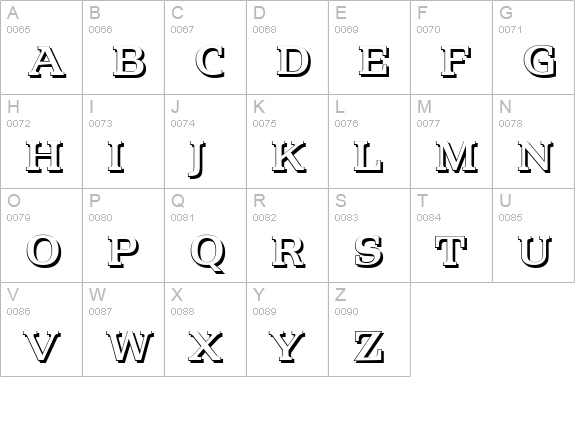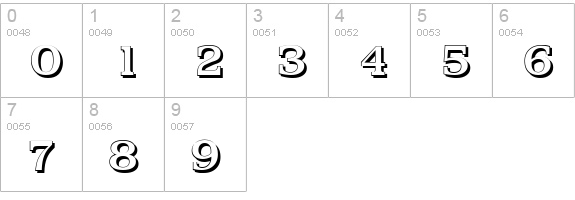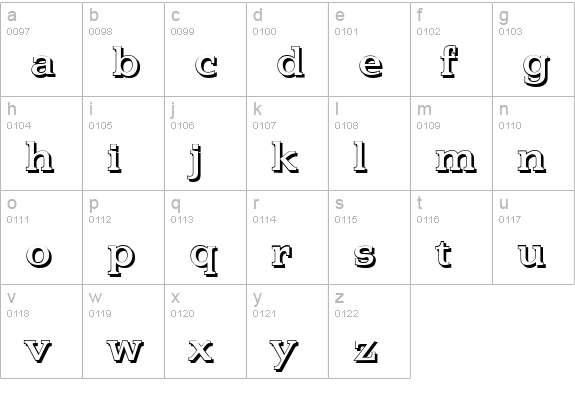
PenthouseShadow-Medium-Regular Font Details
PenthouseShadow-Medium-Regular is a balanced, medium-weight variant in the PenthouseShadow typeface family \xE2\x80\x94 well suited to sub-headlines, navigation, and balanced editorial work.
PenthouseShadow-Medium-Regular font is a stunning and elegant typeface that exudes sophistication and style. With its unique shadow effect, this font adds a touch of drama and flair to any design project. The medium weight strikes the perfect balance between boldness and readability, making it versatile for various applications. What's even better is that PenthouseShadow-Medium-Regular font is available for free download at FontsMarket.com. Whether you're working on a branding project, editorial design, or any other creative endeavor, this font is sure to make a statement and elevate your work to the next level. Don't miss out on this opportunity to enhance your designs with this exquisite typeface.